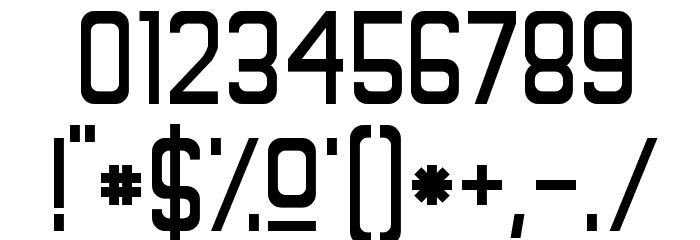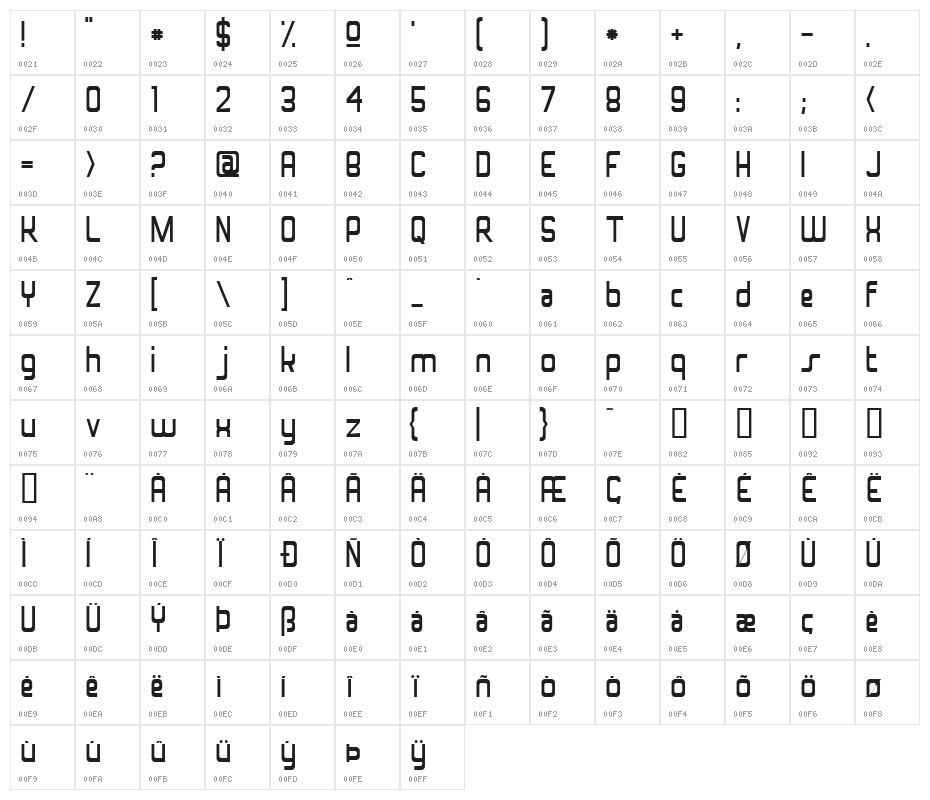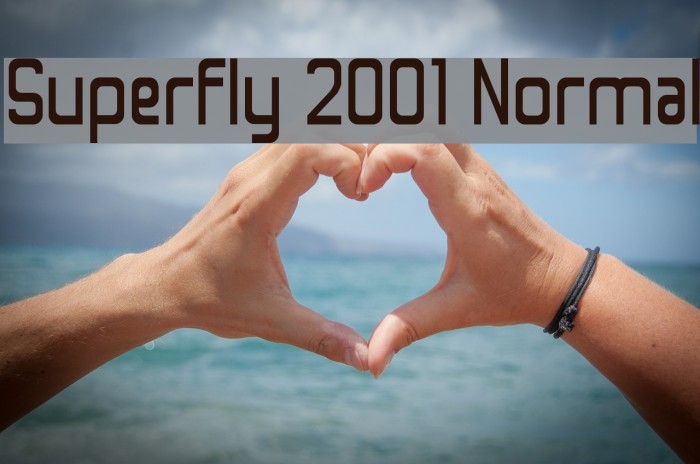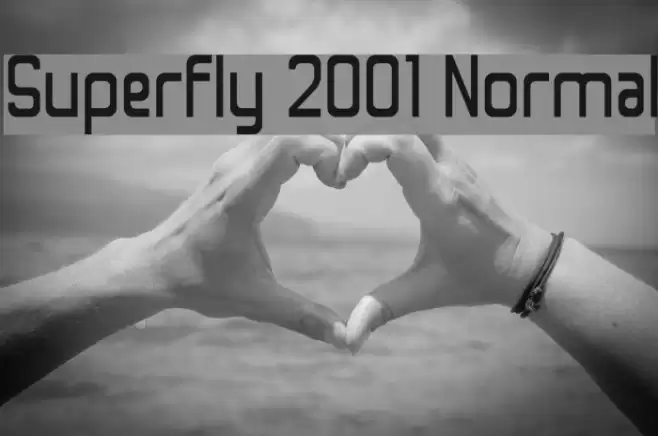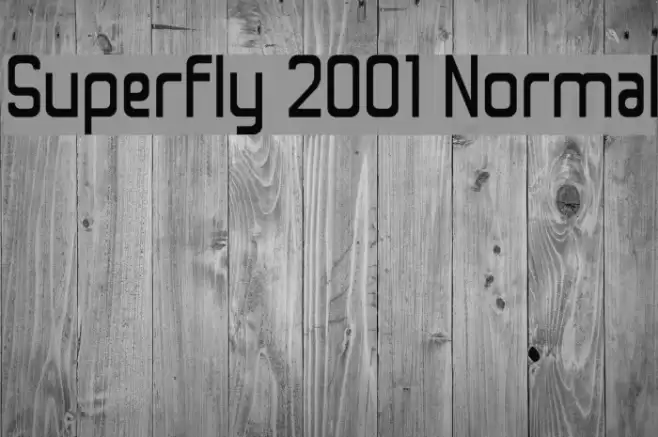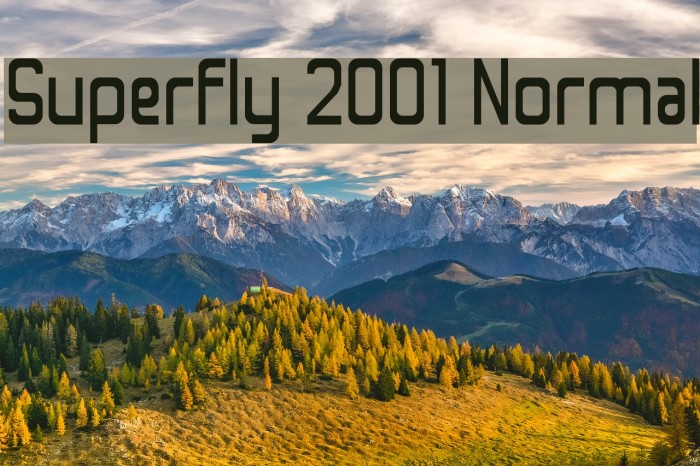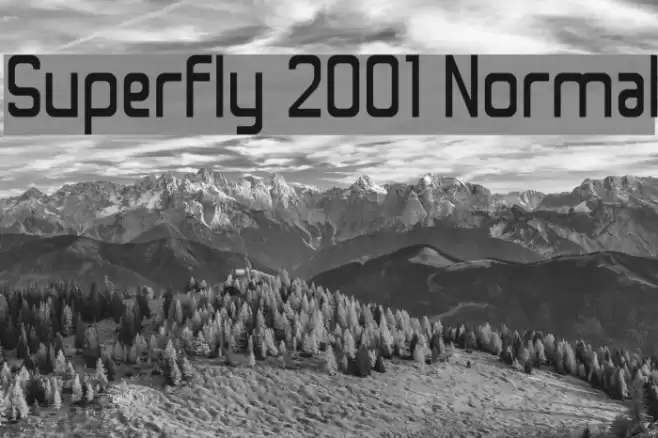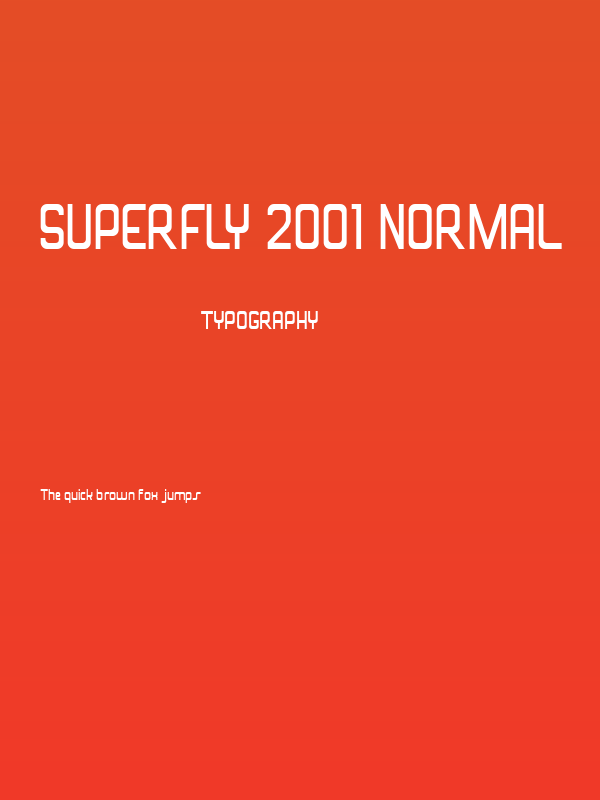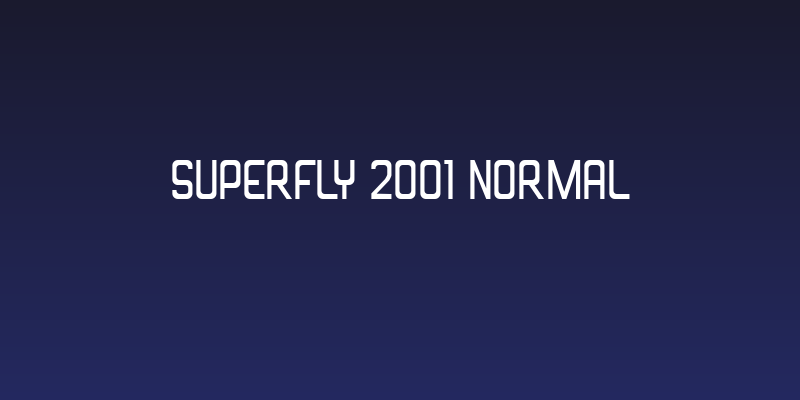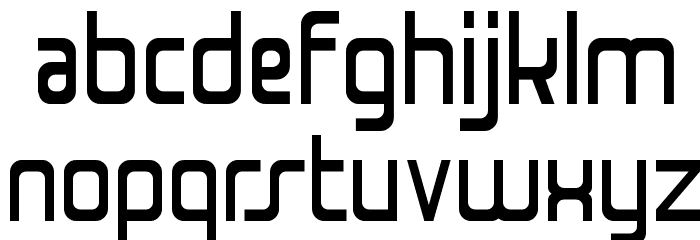
Superfly 2001 Normal Font
Superfly 2001 Normal Description
This font features a modern, geometric design with clean lines and a structured appearance. The characters are uniform in width, giving it a monospaced feel, although it is not strictly monospaced. The uppercase letters are bold and prominent, while the lowercase letters maintain a consistent height and width, ensuring readability. The numerals are clear and distinct, matching the overall style of the alphabet. Special characters are well-integrated, maintaining the geometric theme. The font's design is both functional and stylish, making it suitable for a variety of applications.
| Use Case | Headlines, Logos, Digital Interfaces |
| Proposed Projects | Ideal for tech branding, digital interfaces, and modern advertising campaigns. |